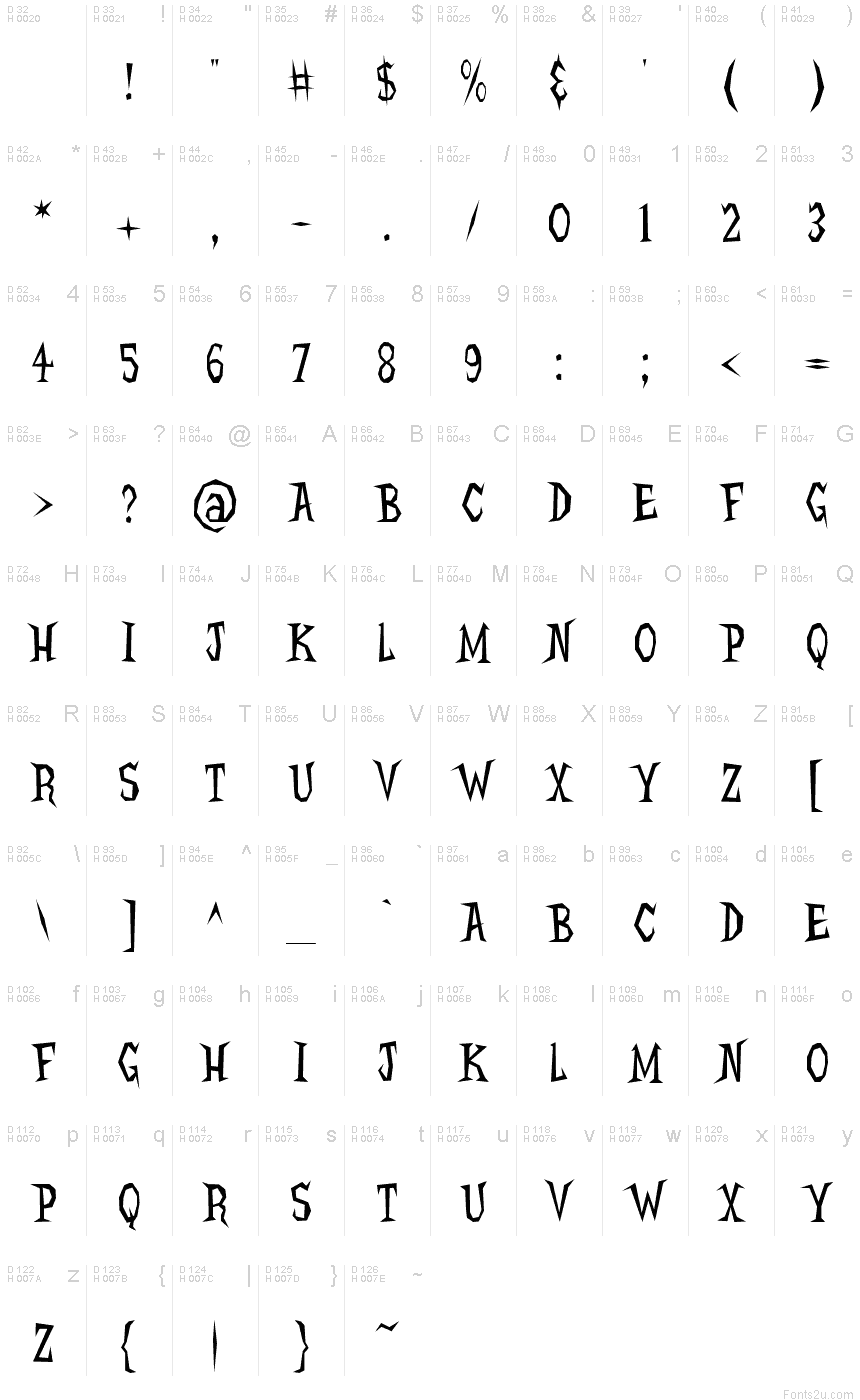
Hellcats BV
Hellcats BV font by Blue Vinyl Fonts is a free scary display typeface that lunges off the page with jagged, claw-like strokes and crooked, off-kilter angles. The letters feel scratched in with a blunt knife-uneven, aggressive, and just a bit chaotic-giving headlines an instant shock of tension and attitude. There’s a raw, hand-drawn energy here that makes everything look louder, meaner, and a little unhinged.
Using Hellcats BV, you can crank up the drama on horror movie posters, Halloween flyers, metal or punk band logos, haunted house signage, escape room branding, and spooky game titles. This free font works best oversized, where its sharp silhouettes can breathe, and it pairs well with a plain condensed sans for supporting text that won’t compete with the chaos.